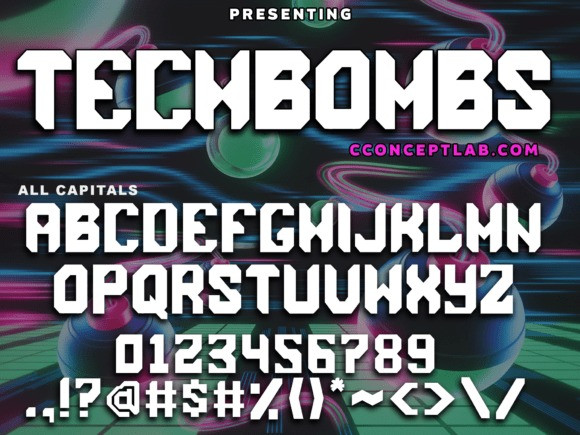
TechBombs Font
TechBombs Font is an incredibly unique children sci fi font. Masterfully designed to become a true favorite, this font has the potential to bring each of your creative ideas to the highest level! With its comic, cartoon and technology look, this font is ideal for branding, theme posters, video games marketing, invitations, posters, inspirational quotes, or merchandise with natural handwritten vibe.